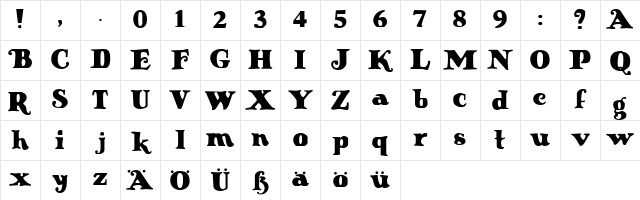
Knuffig Knuffig
Style: Knuffig
Knuffig Family
Design Context for Knuffig
Knuffig is a composed and adaptable typeface that performs quietly and consistently across a wide range of design contexts.